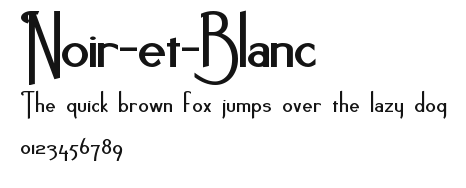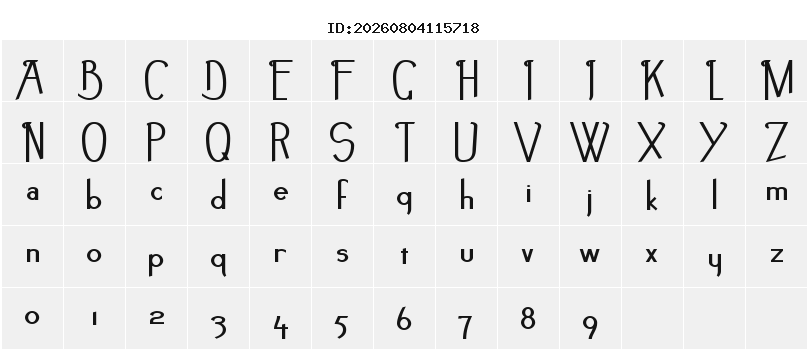
• Font Name: Noir-et-Blanc
• Font ID: DTP-Noir-et-Blanc Bold
• Full Font Name: Noir-et-Blanc Bold
• PostScript Name: Noir-et-Blanc-Bold
About Noir-et-Blanc.ttf
Noir-et-Blanc.ttf is a modern, elegant sans-serif font designed for ultimate readability and visual harmony. Perfect for branding, headlines, web design, and print materials.